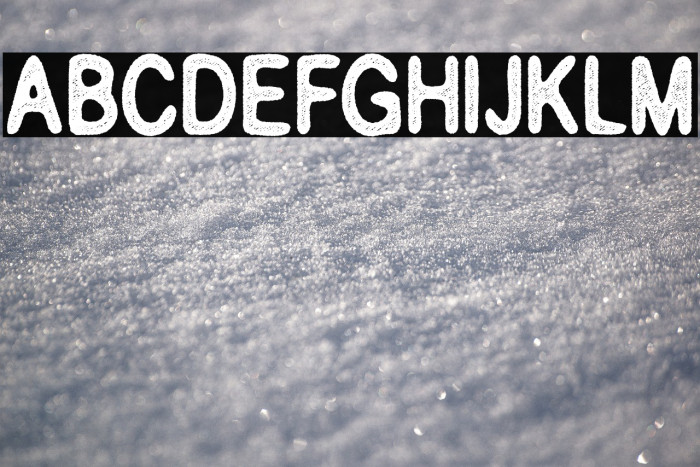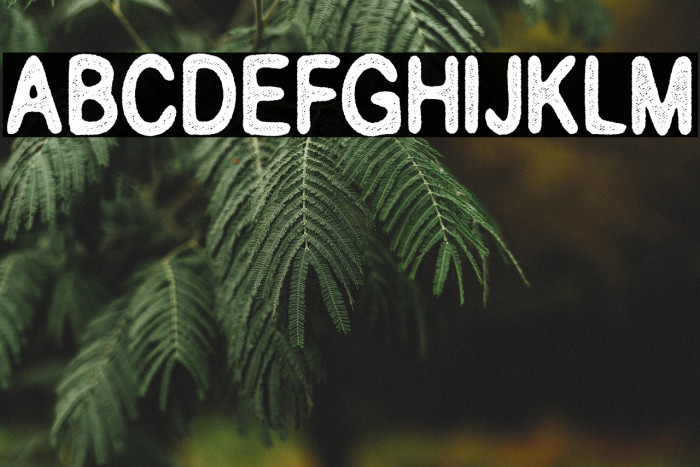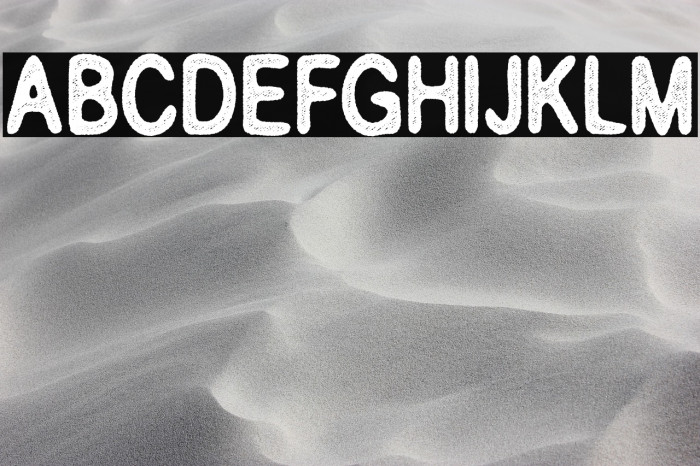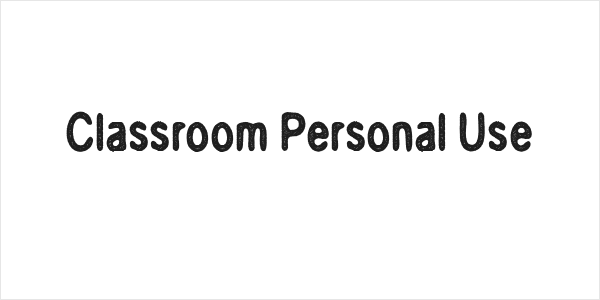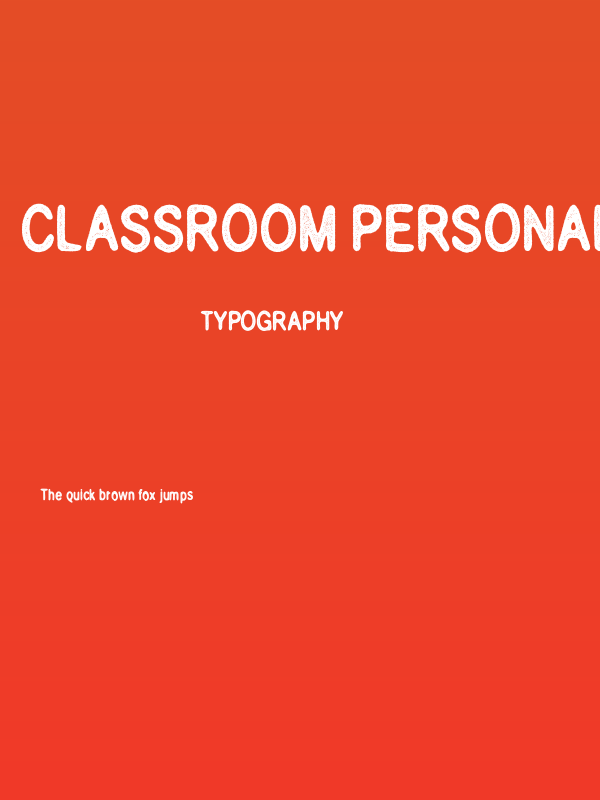
Classroom Personal Use Font
This playful and bold font features a textured, hand-drawn appearance that adds a whimsical touch to any design. The characters are rounded and slightly irregular, giving them a friendly and approachable feel. The texture within each letter resembles a chalk or crayon effect, making it ideal for projects that require a casual and fun aesthetic. The font maintains a consistent weight throughout, ensuring readability while still offering a unique visual appeal. Its informal style is perfect for creative projects that aim to convey a sense of joy and spontaneity.
Proposed ProjectsIdeal for children's books, educational materials, playful branding, and casual event invitations.